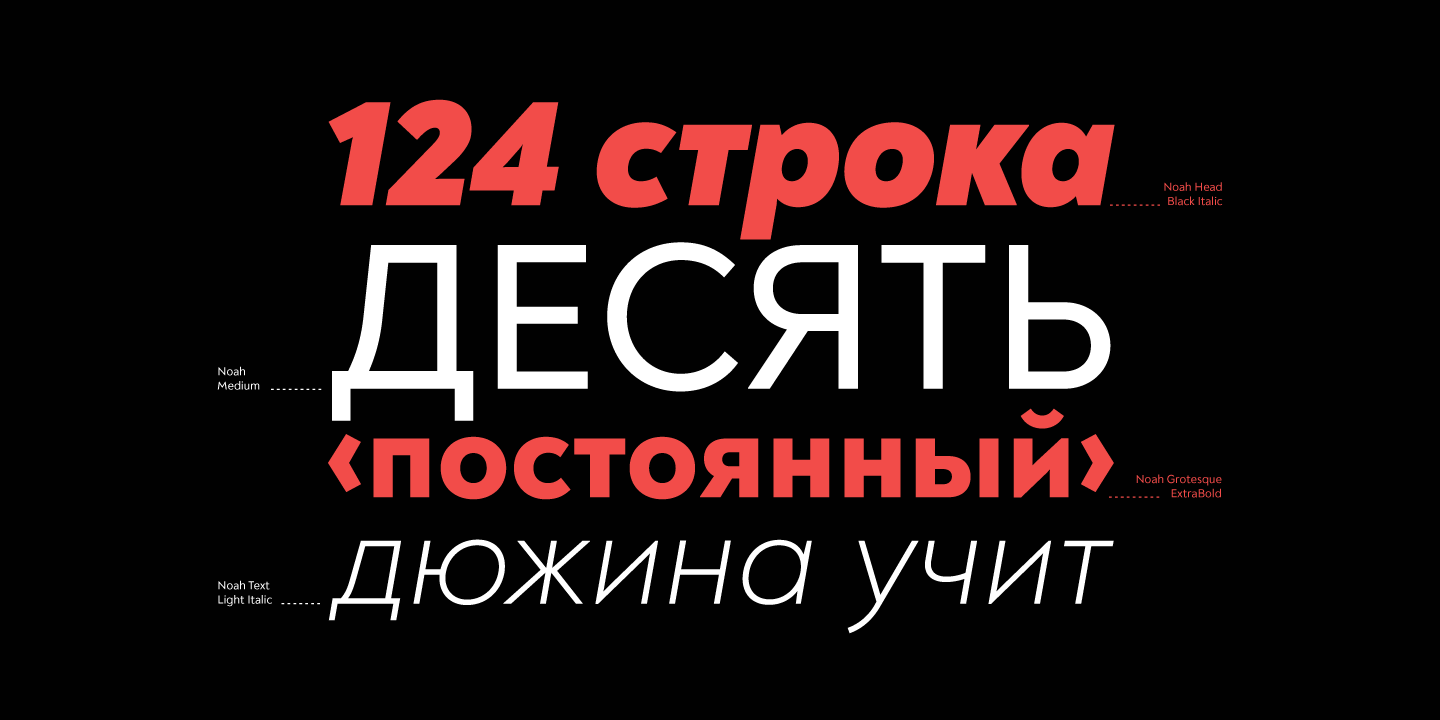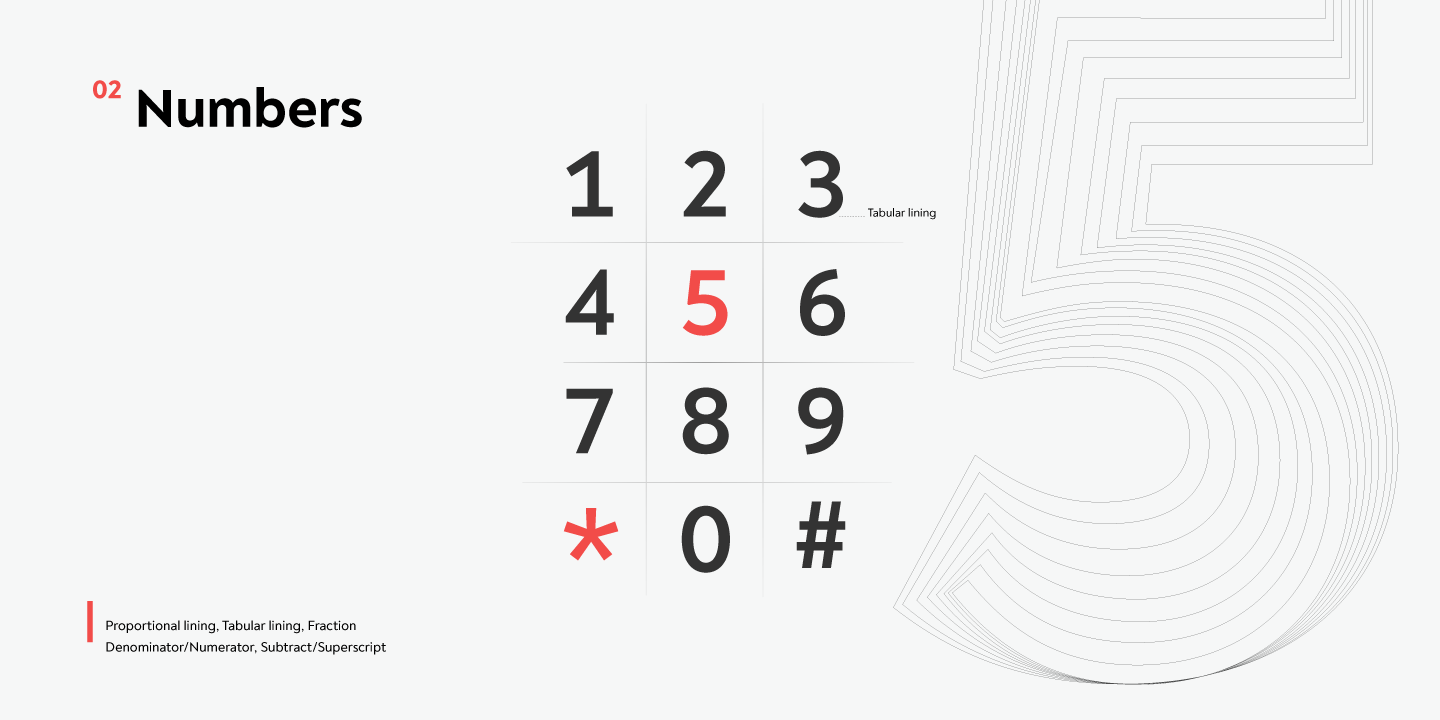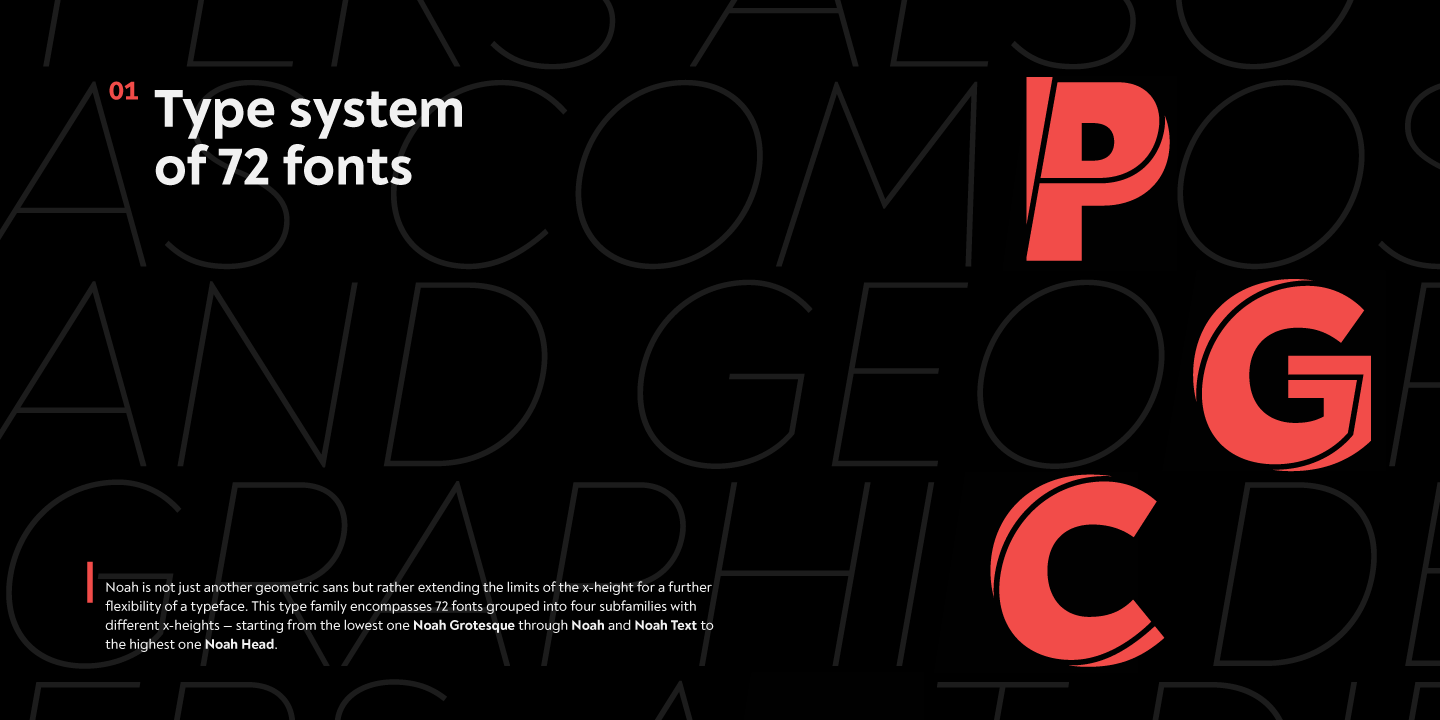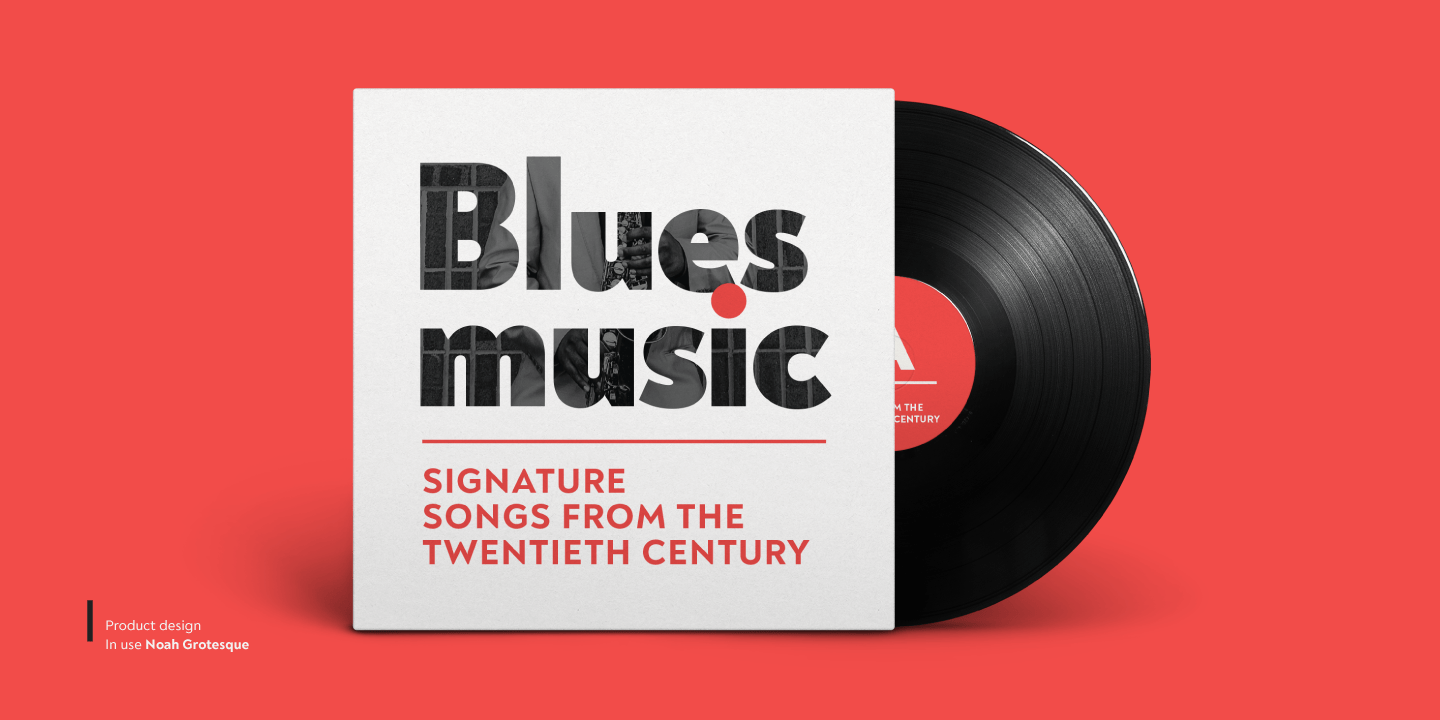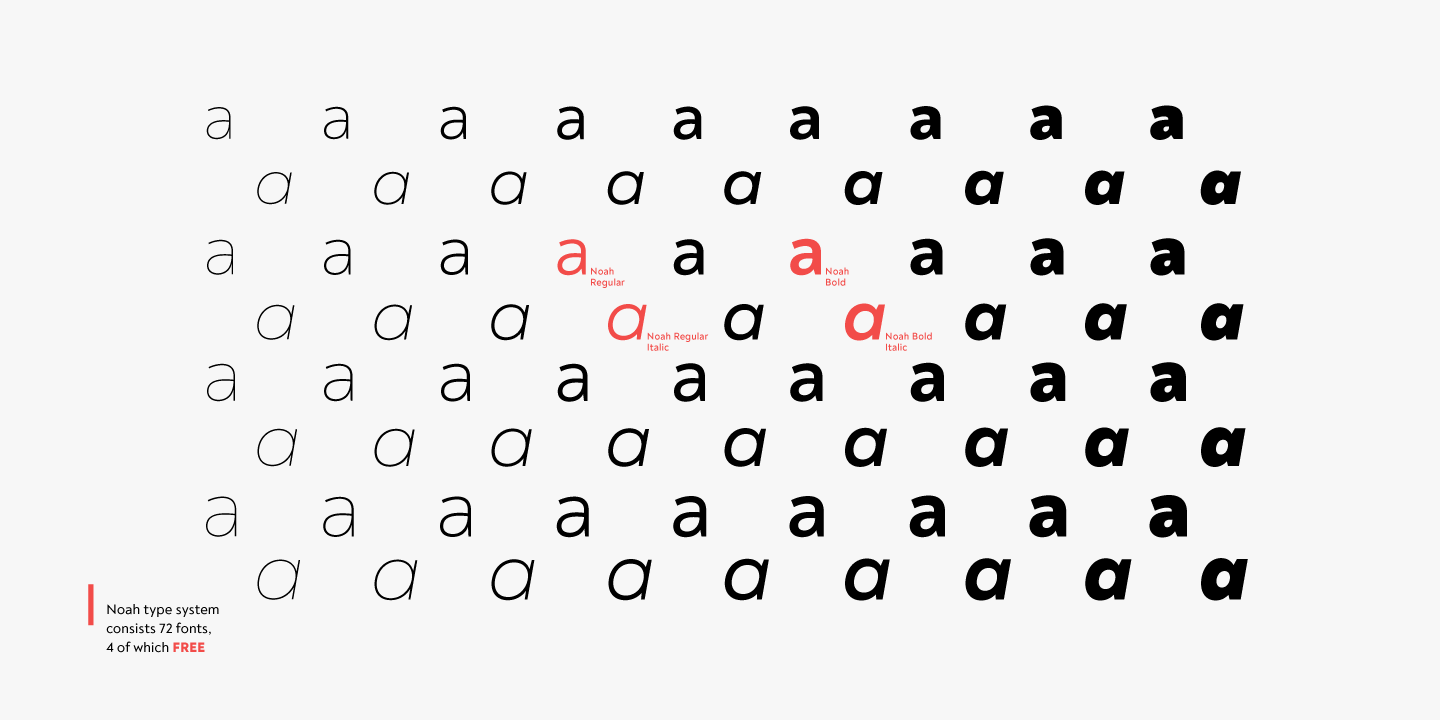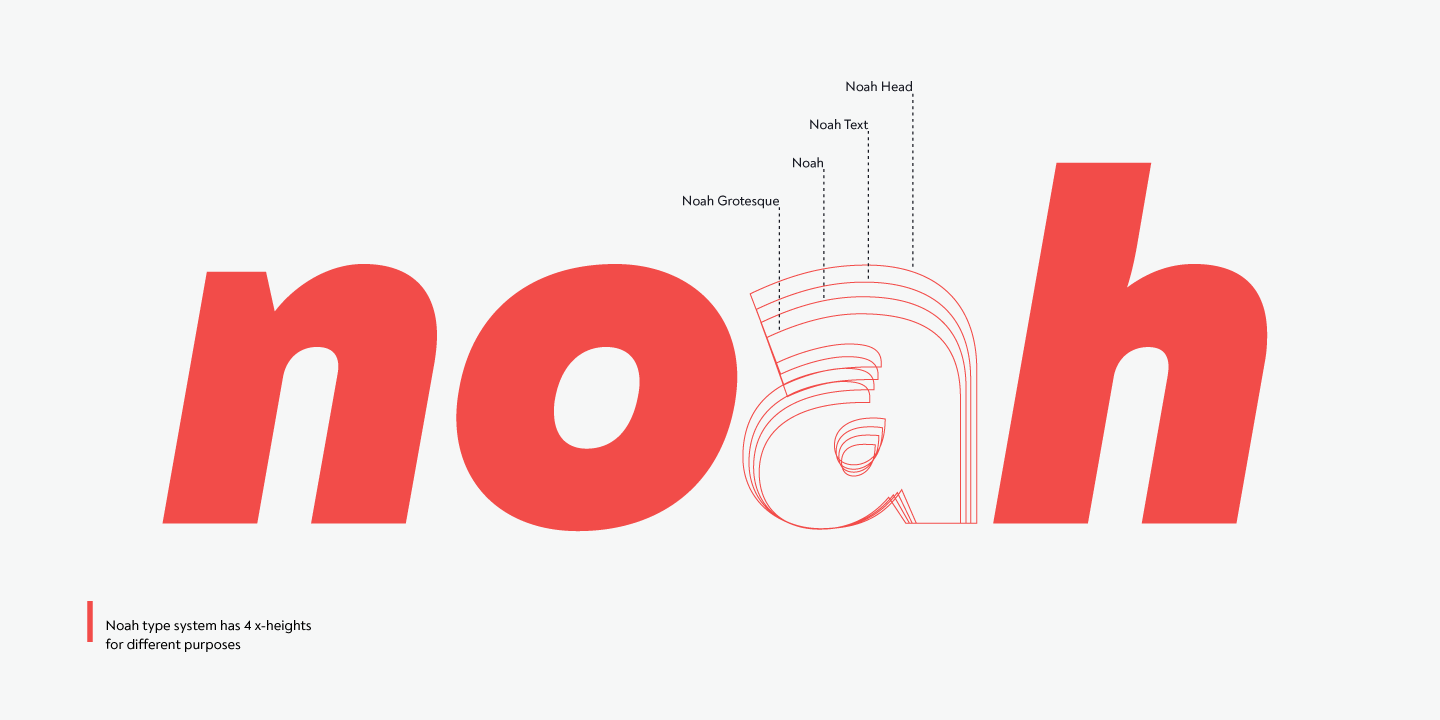
Noah
About Noah
Noah is more than just another geometric sans. With sharp details and a distinctive arrangement, it further extends the limits of the x-height, providing unparalleled flexibility. The specific structure is paired with normal width proportions, moderate…